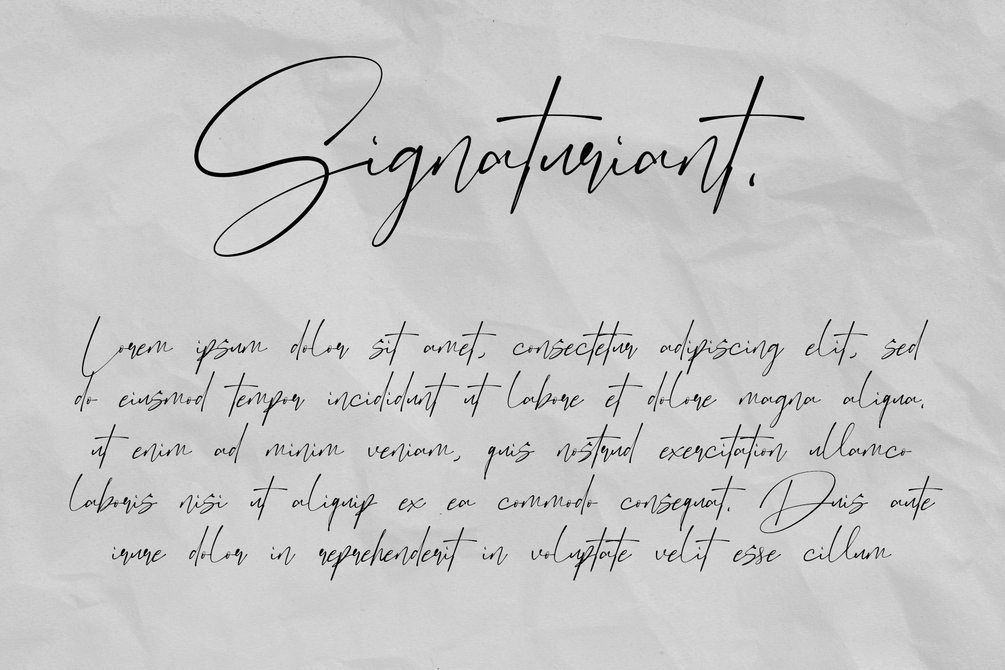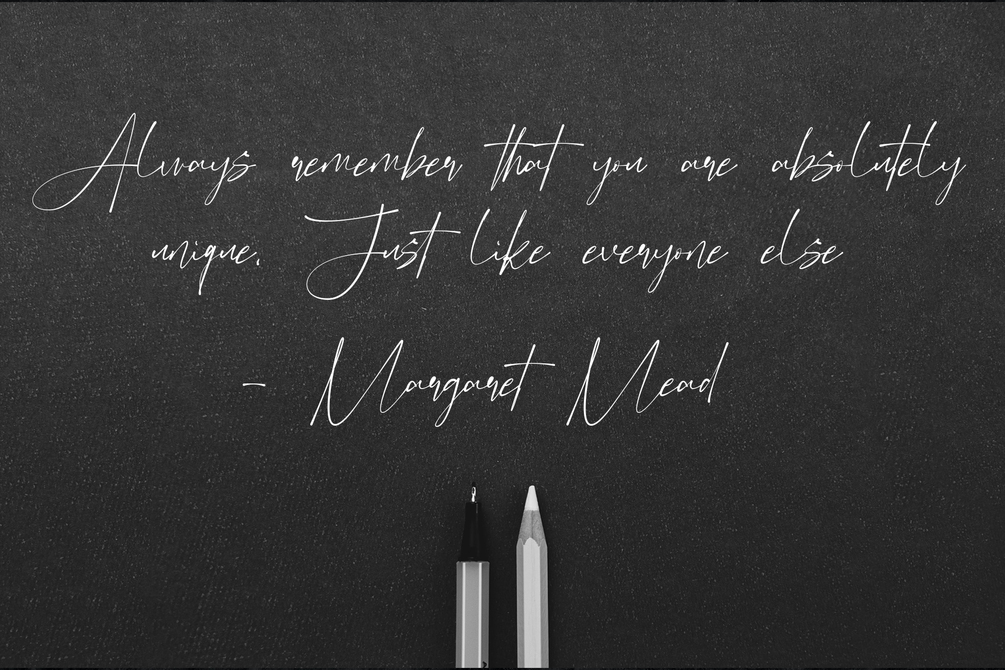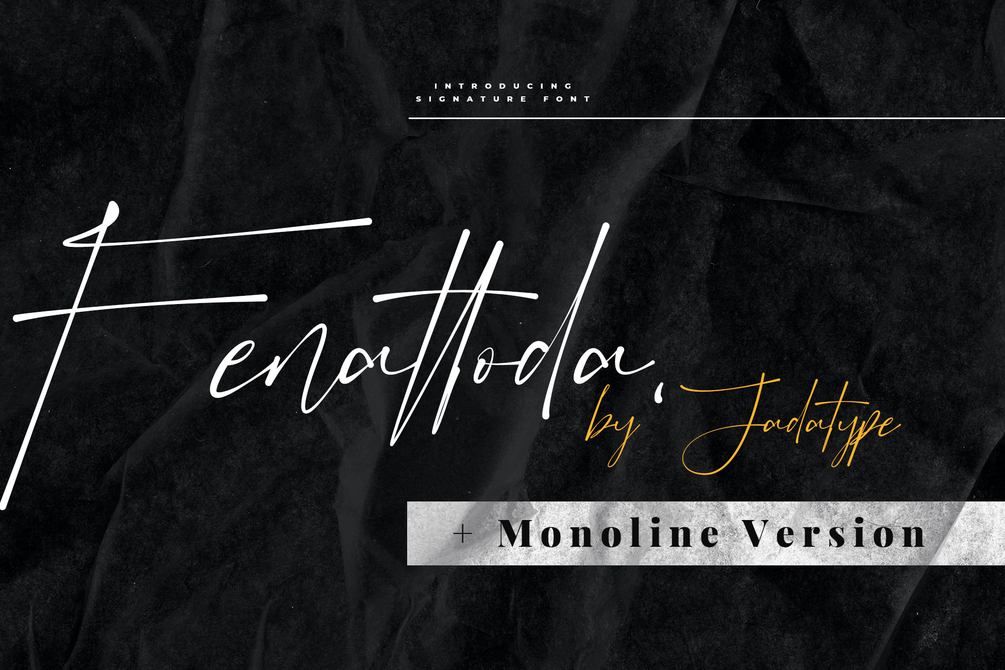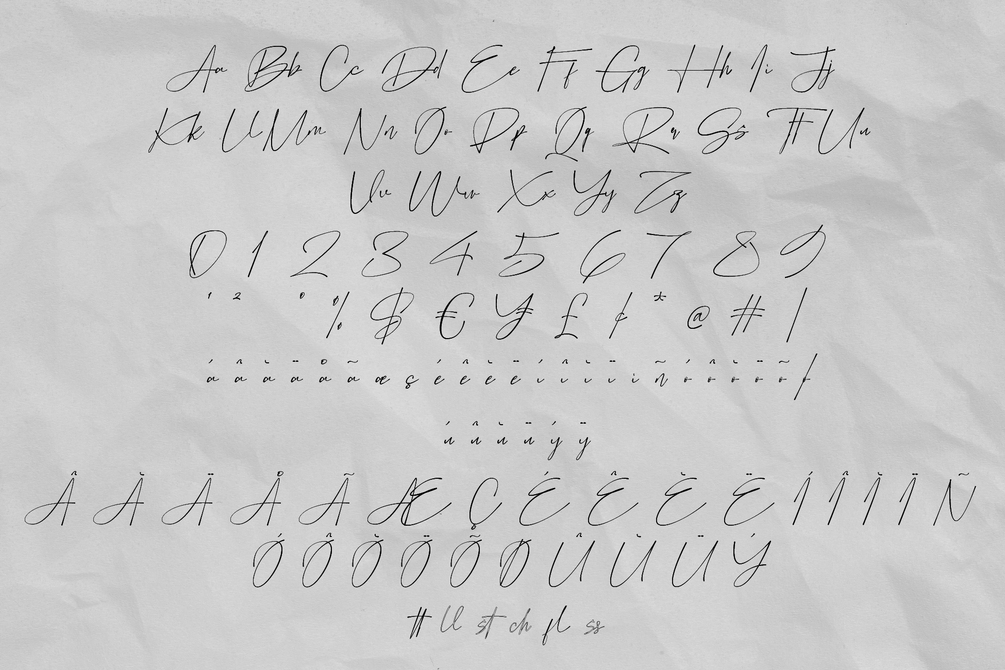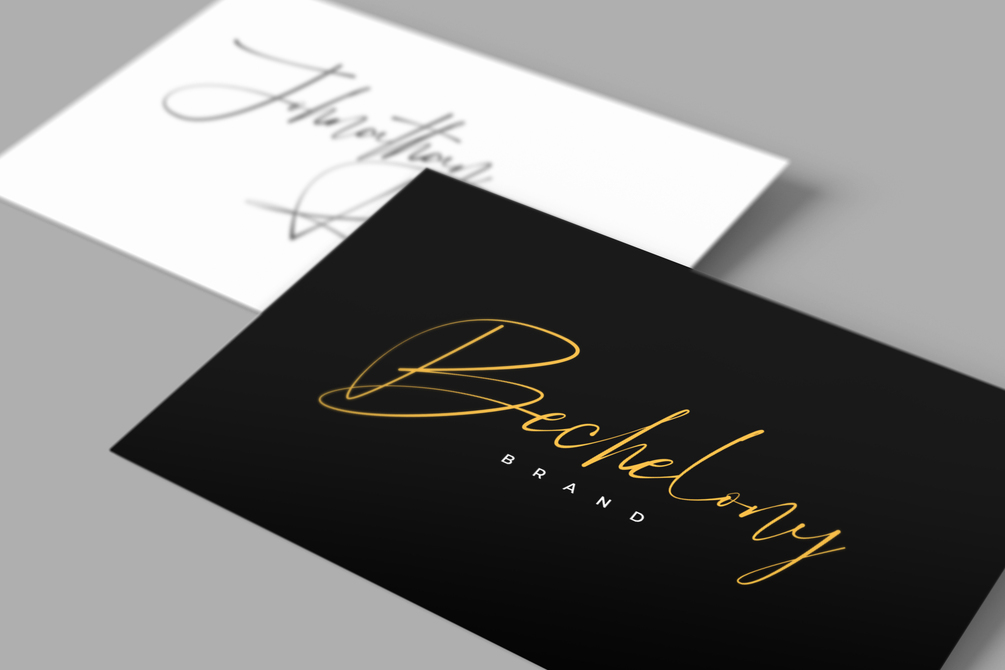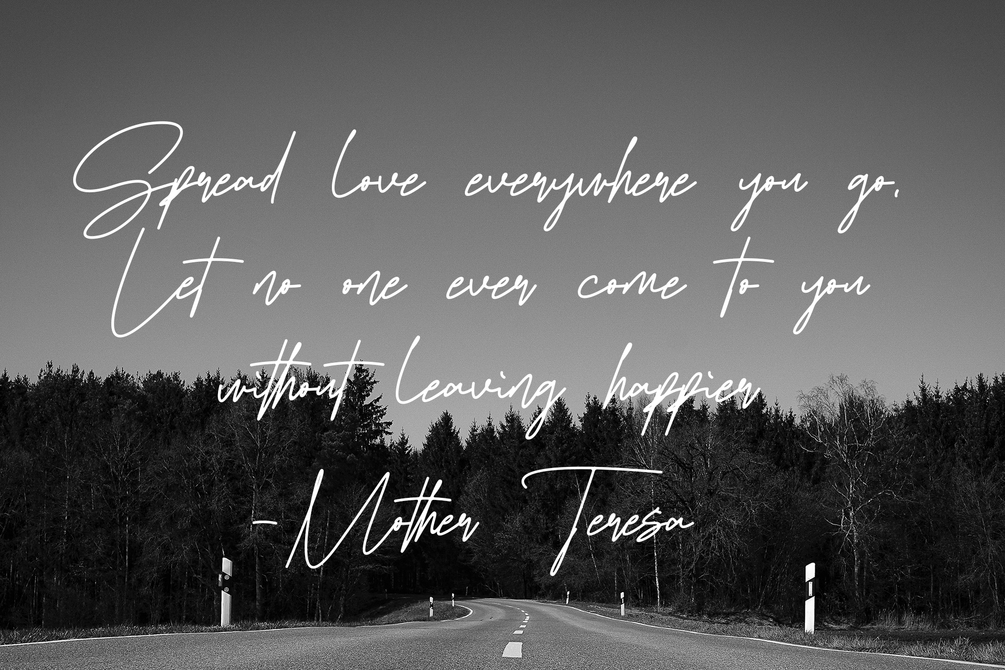
Fenattoda Font
Fenattoda is a font with a stylish signature style. suitable for branding, social media, products, advertisement, and so on. contains standard English letters, numbers, punctuation, and several accents that support multilingualism.
Fenattoda & Fenattoda Monoline